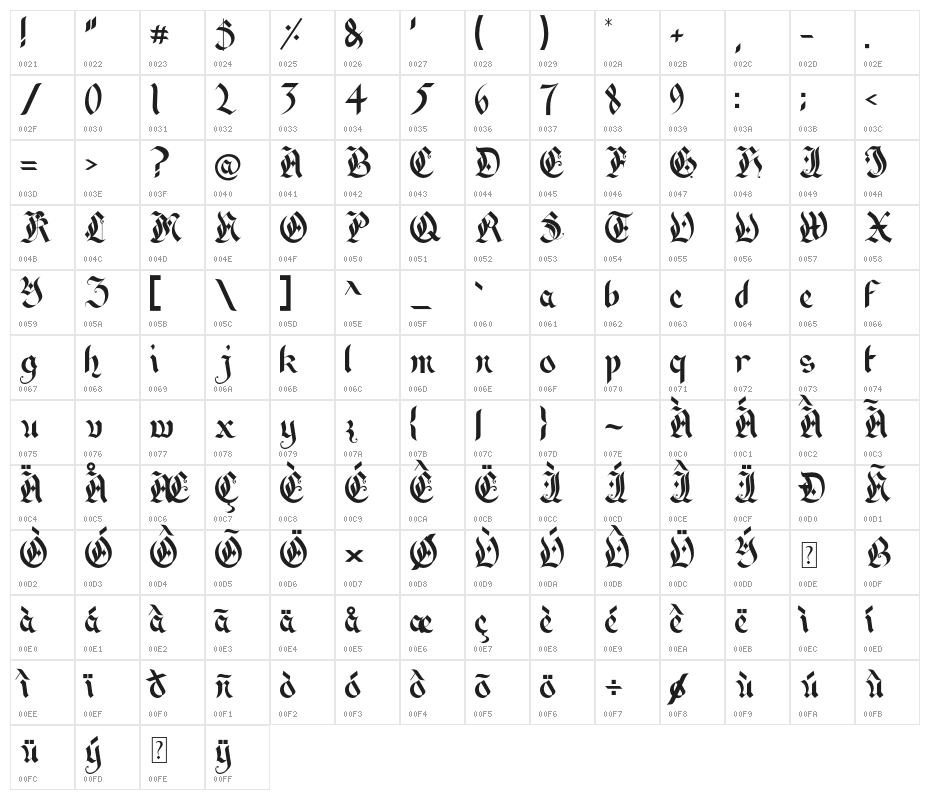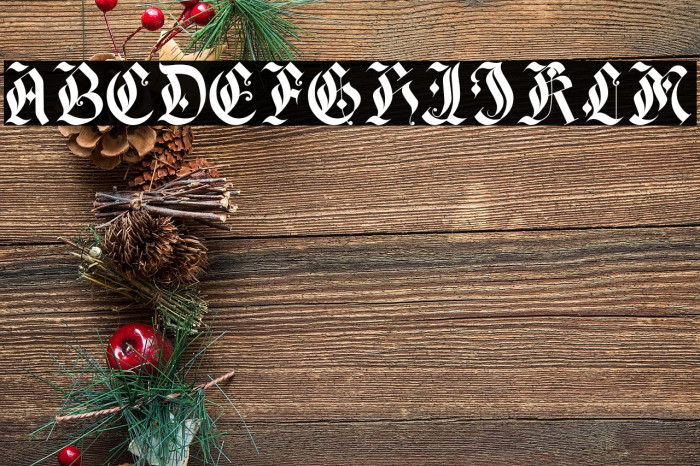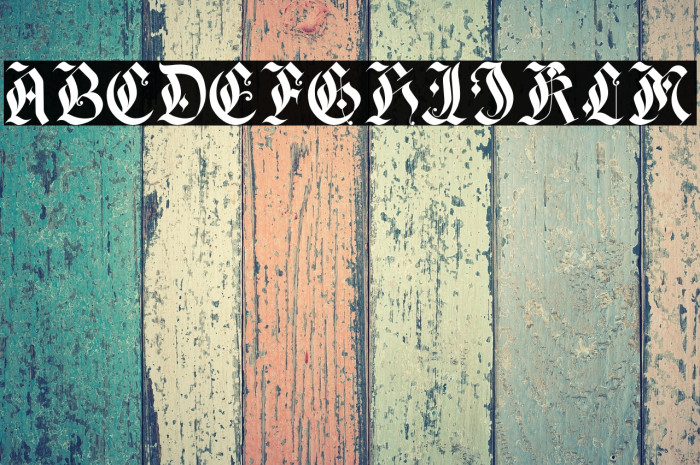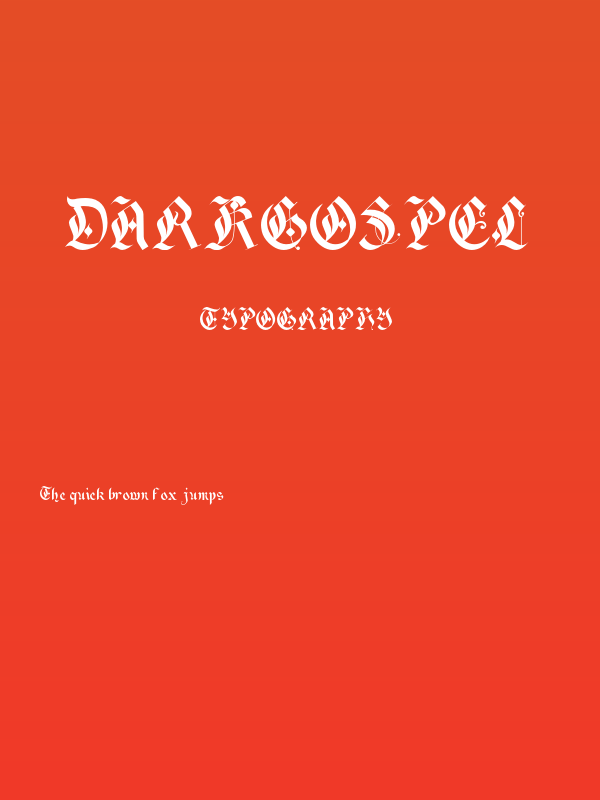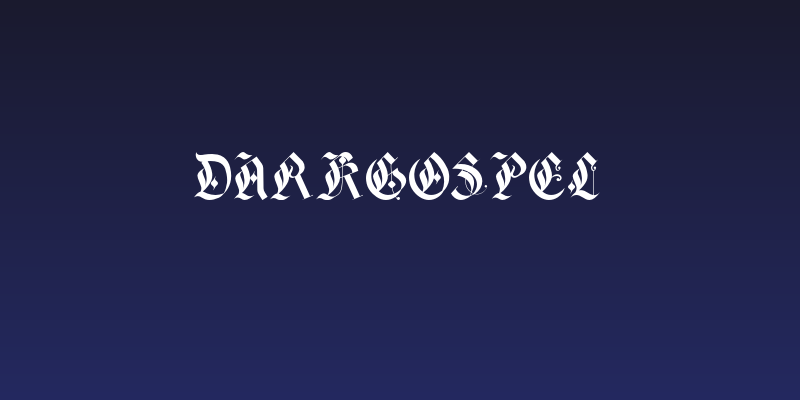
DarkGospel Font
DarkGospel Description
This font features a striking and dramatic style, reminiscent of traditional Gothic or Blackletter typefaces. The characters are ornate, with sharp, angular lines and intricate details that give them a medieval appearance. The uppercase letters are particularly elaborate, with flourishes and embellishments that enhance their visual impact. The lowercase letters maintain the same stylistic elements but are slightly more subdued, providing a harmonious balance. The numerals and special characters are consistent with the overall theme, featuring bold strokes and decorative elements. This font is ideal for projects that require a historical or dramatic flair.
| Proposed Projects | Ideal for historical-themed designs, book covers, posters, and branding that requires a dramatic or medieval touch. |